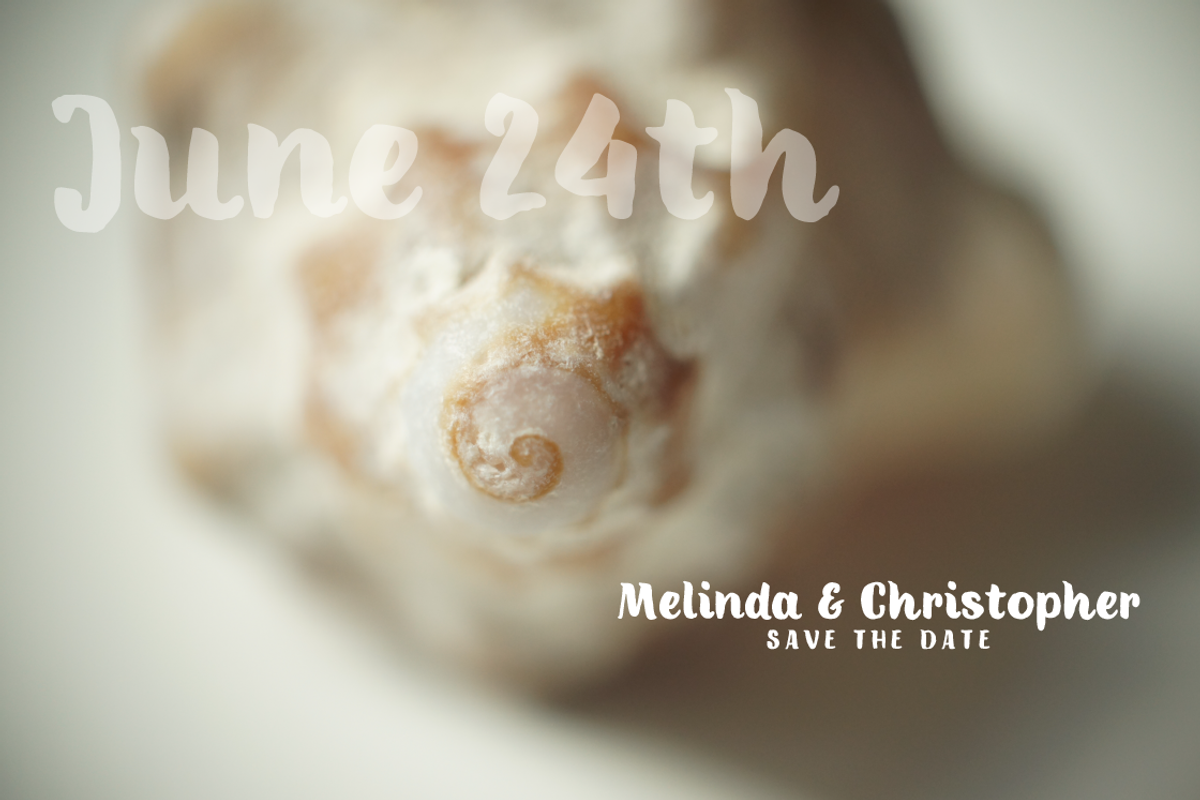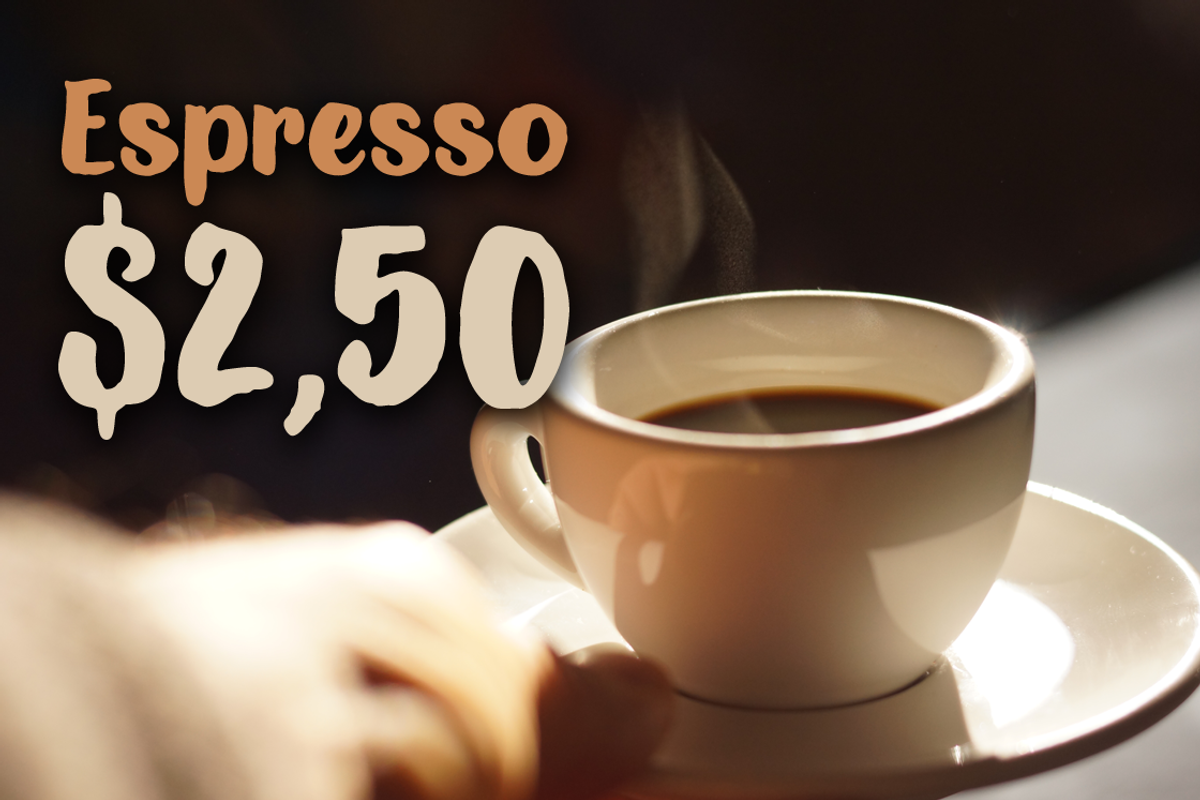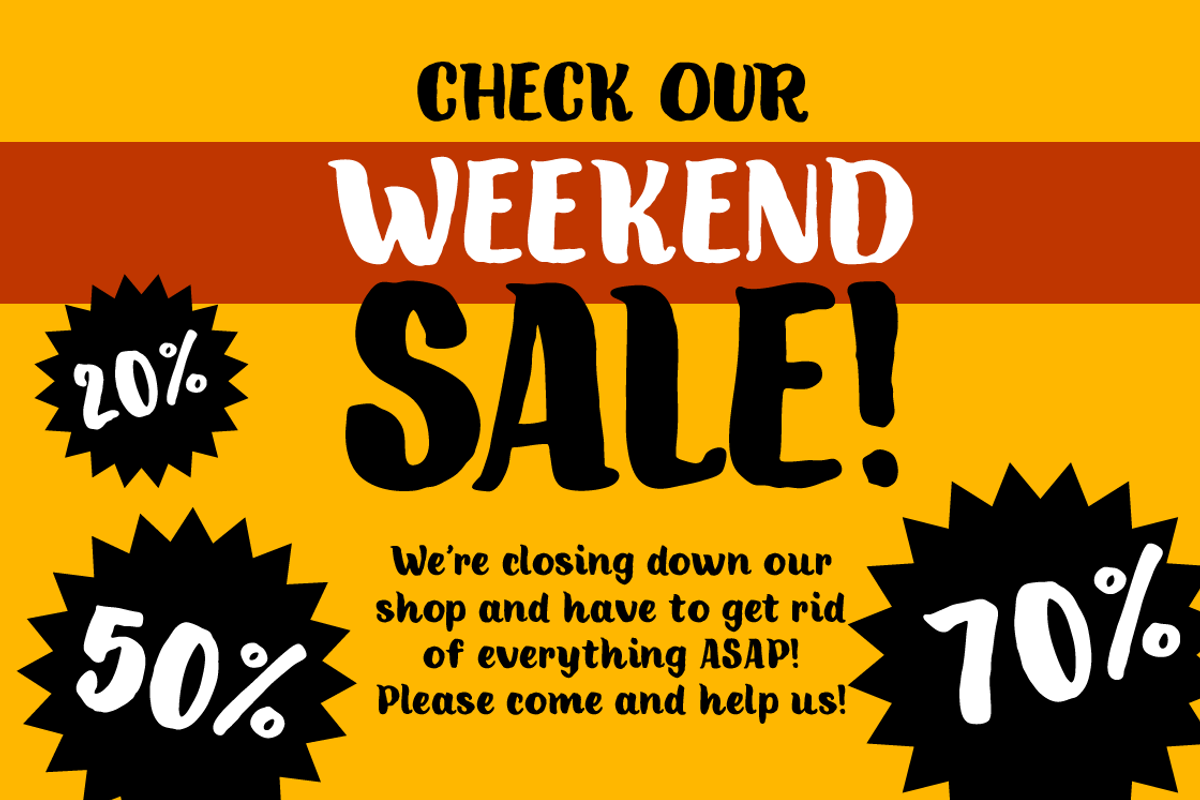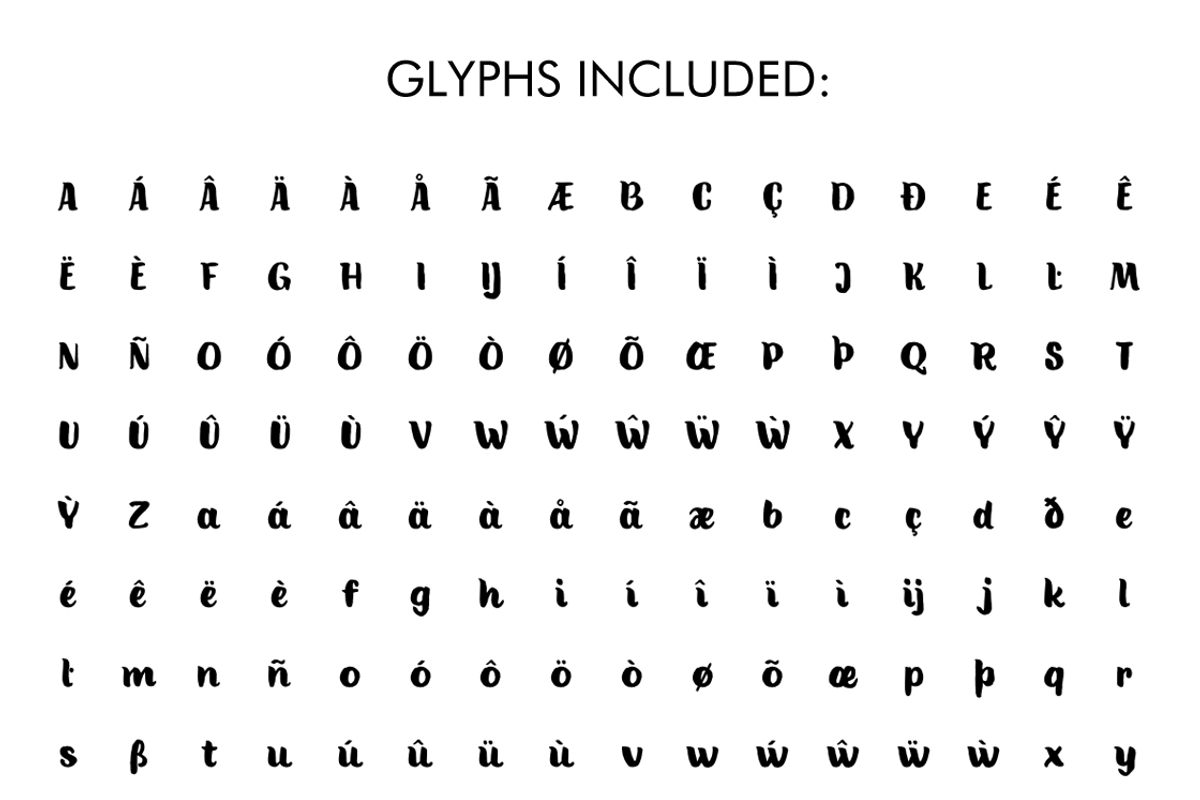
Brad Bold
Brad Bold by Fonts by ateliervonau is a font selected for branding, posters, packaging, typography.
Why Brad Bold is worth a look
Brad Bold by Fonts by ateliervonau fits naturally into Branding, posters, packaging, typography.